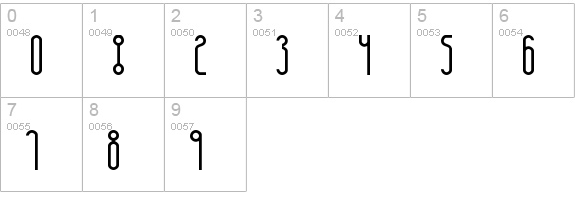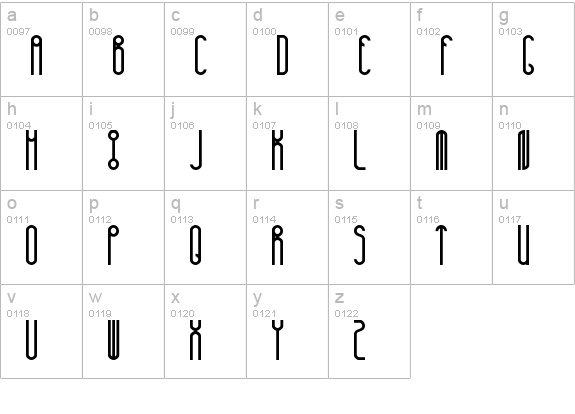
Huxley Font Details
Huxley font exudes a sense of modern elegance with its sleek lines and sophisticated curves. This versatile typeface is perfect for a wide range of design projects, from branding to editorial layouts. Its clean and contemporary aesthetic makes it a popular choice among designers looking to add a touch of refinement to their work. What sets Huxley font apart is not just its stunning visual appeal but also its accessibility. Designed with user-friendliness in mind, this font is easy to read and works well in both print and digital mediums. Whether you're creating a sleek logo or crafting an eye-catching poster, Huxley font is sure to make a statement. And the best part? Huxley font is completely free to download at FontsMarket.com. That's right, you can elevate your design projects with this elegant typeface without spending a dime. So why wait? Head over to FontsMarket.com now and add Huxley font to your collection today!